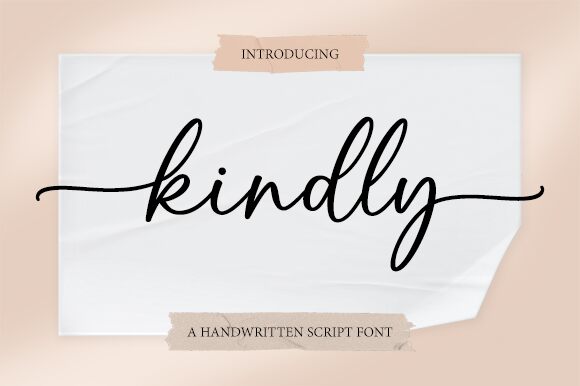
Kindly
Kindly, a captivating handwritten font crafted by Graphix Line Studio, exudes a delicate and organic charm that commands attention. Its fluid strokes and natural curves seamlessly blend to create a whimsical, yet sophisticated aesthetic, evoking a sense of warmth and approachability. The font's distinctive character allows it to blend effortlessly across a wide range of design applications, making it a versatile choice for branding, editorial layouts, and creative projects that aim to convey a handcrafted, artisanal feel.
Kindly's adaptability extends to its suitability for various design contexts, from elegant wedding invitations and greeting cards to rustic product packaging and signage. Its personal, handwritten style lends itself beautifully to projects that seek to establish a personal connection with the audience, such as social media content, product labeling, and promotional materials. Kindly's versatility ensures it remains a go-to choice for designers and brands looking to infuse their work with a touch of authenticity and charm.